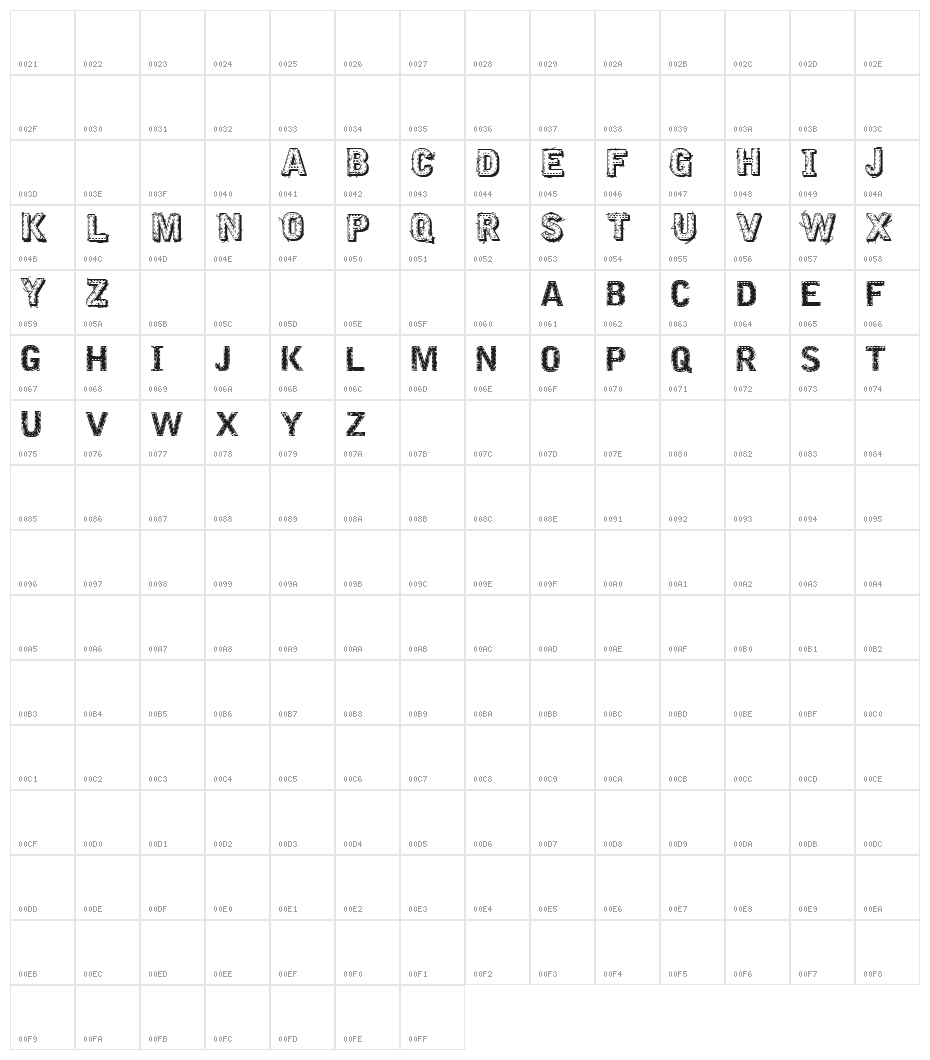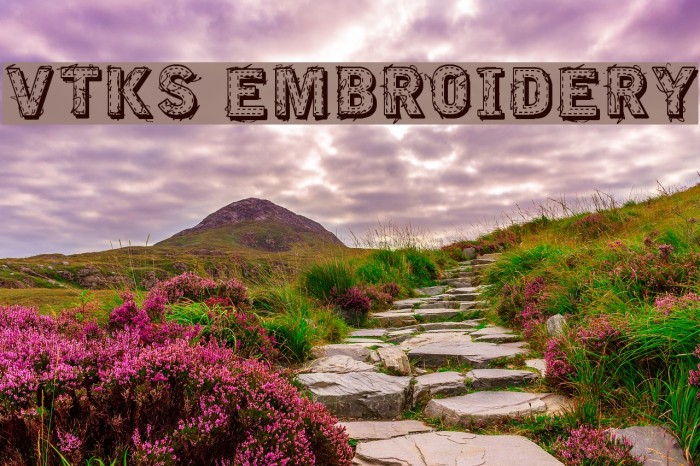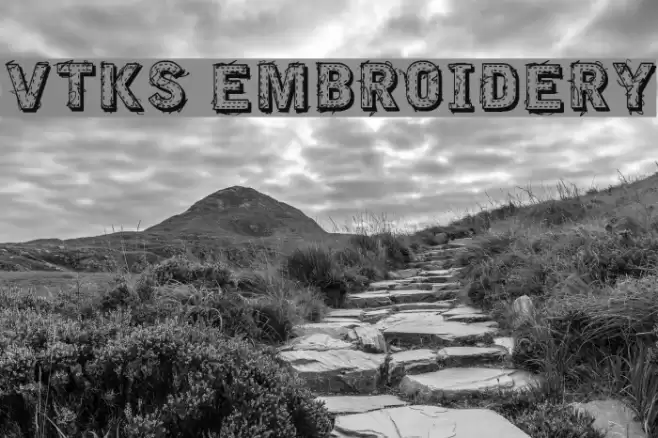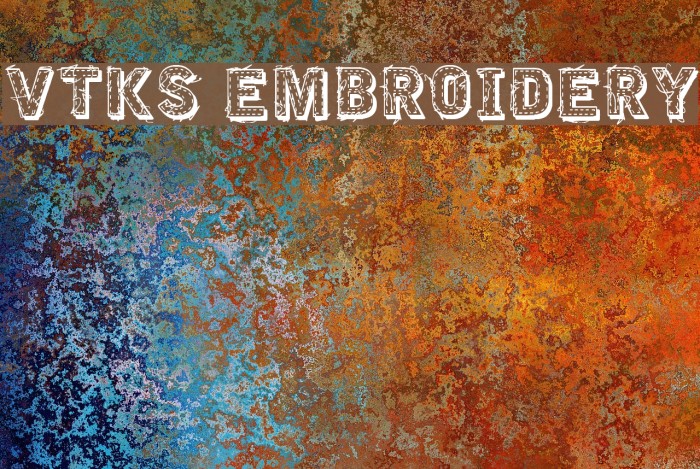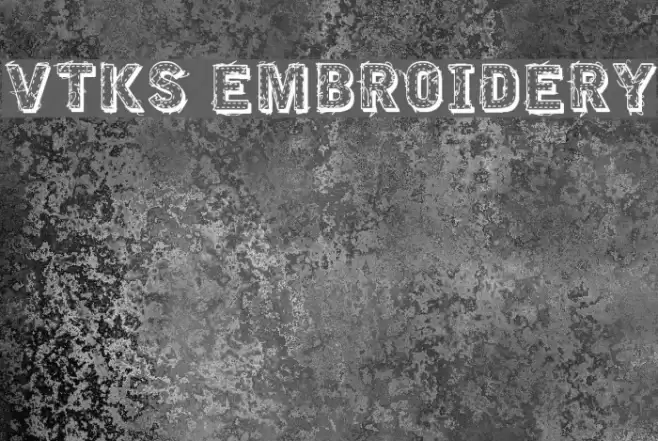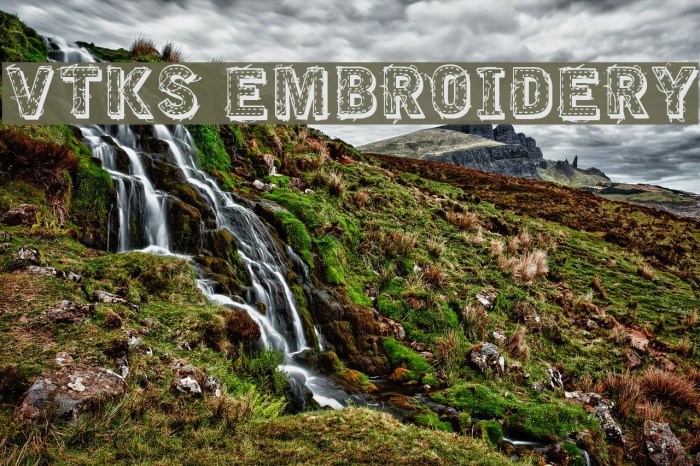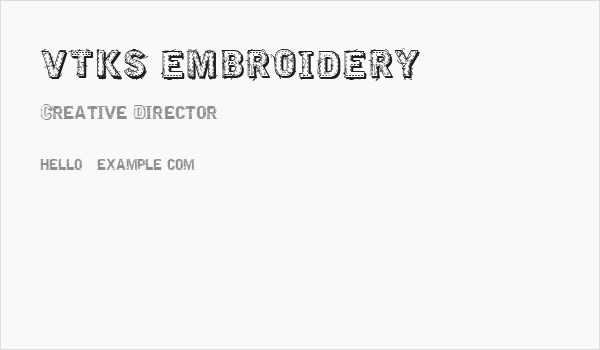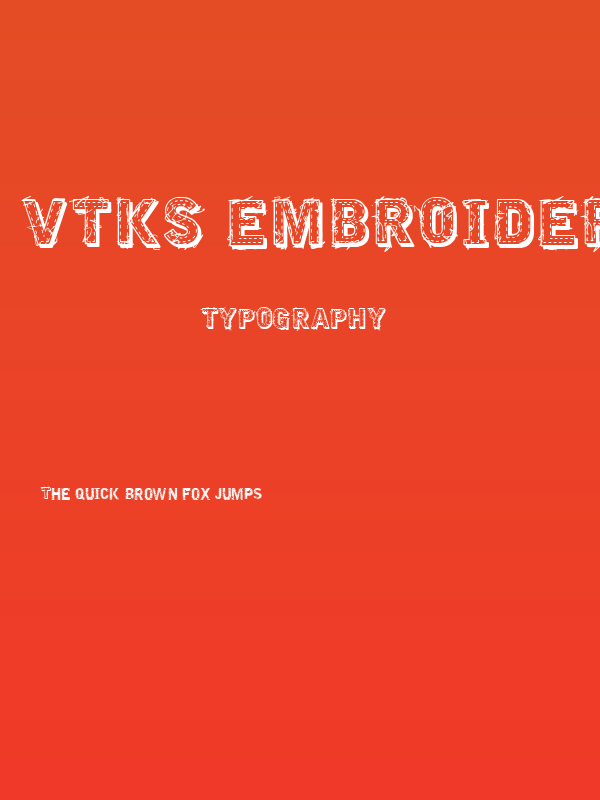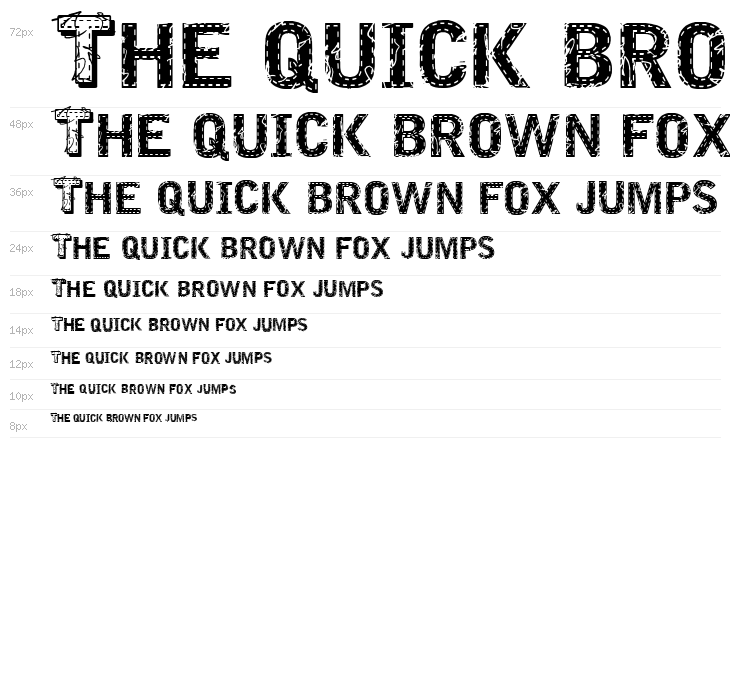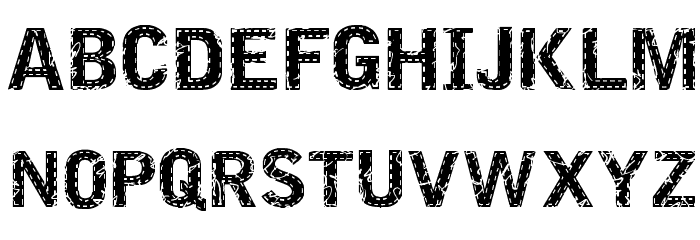
VTKS EMBROIDERY Font
VTKS EMBROIDERY Description
This font features a unique, textured design reminiscent of embroidery or stitching. Each character is outlined with a bold, black border, filled with a pattern that gives the appearance of threadwork. The uppercase letters are prominently displayed, showcasing a handcrafted aesthetic that combines both modern and vintage elements. The font's intricate details make it stand out, providing a tactile, artistic feel suitable for creative projects. Its decorative style is perfect for adding a personal touch to designs, making it ideal for use in branding, crafts, and artistic displays.
| Use Case | Logos, Headlines, Artistic Displays |
| Proposed Projects | Ideal for branding, crafts, artistic displays, and any project requiring a personal, handcrafted touch. |